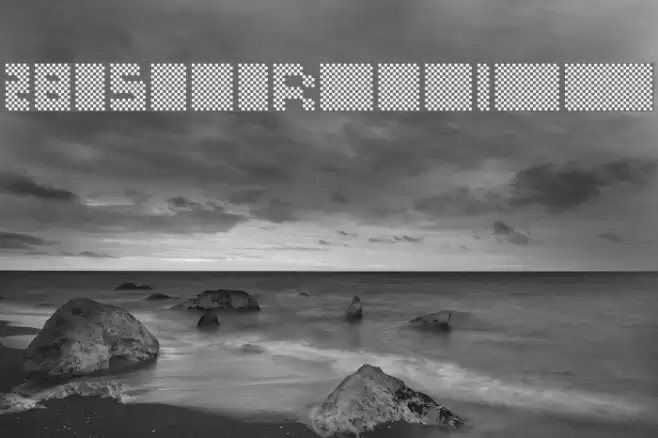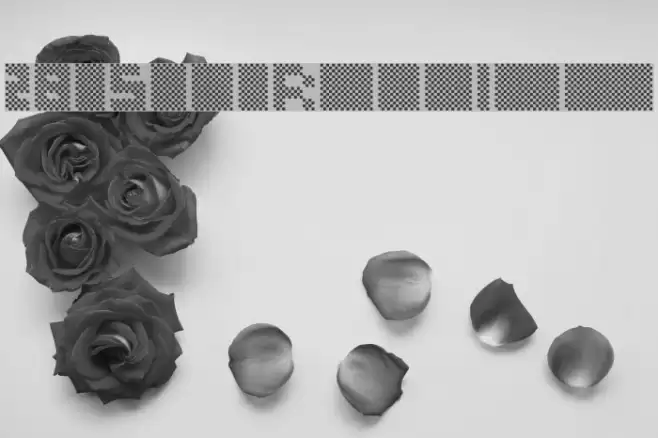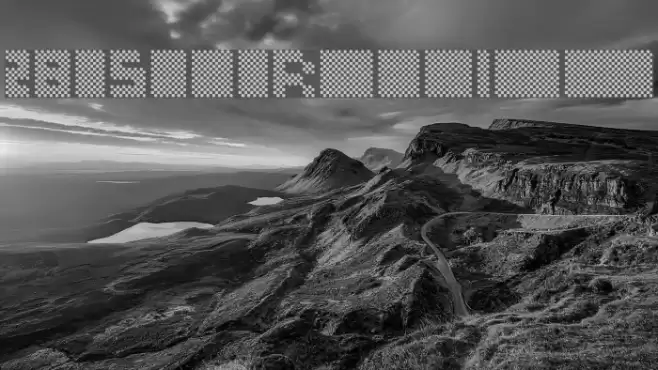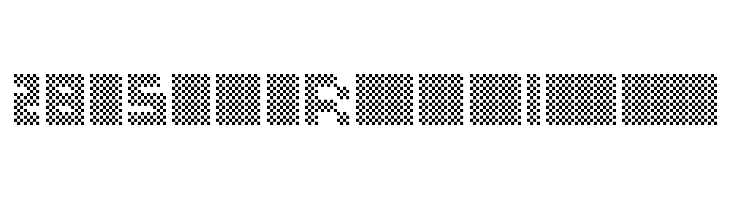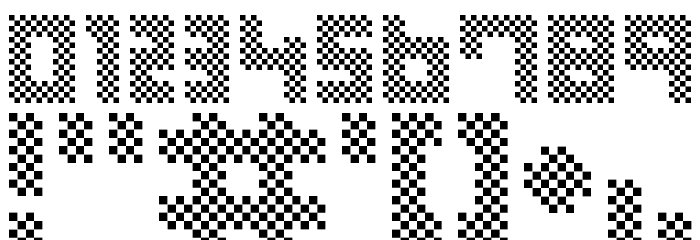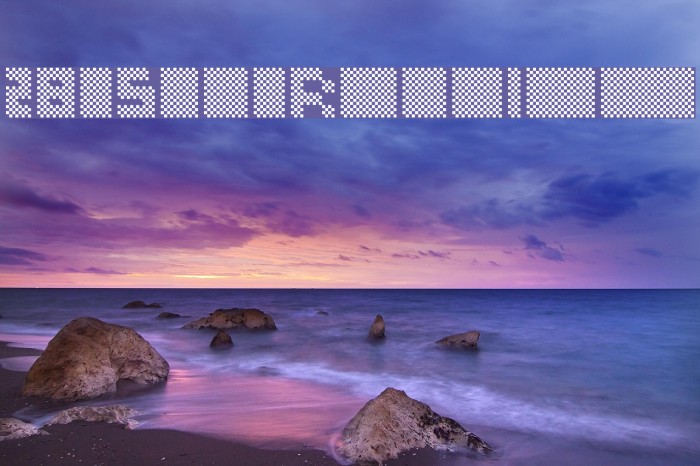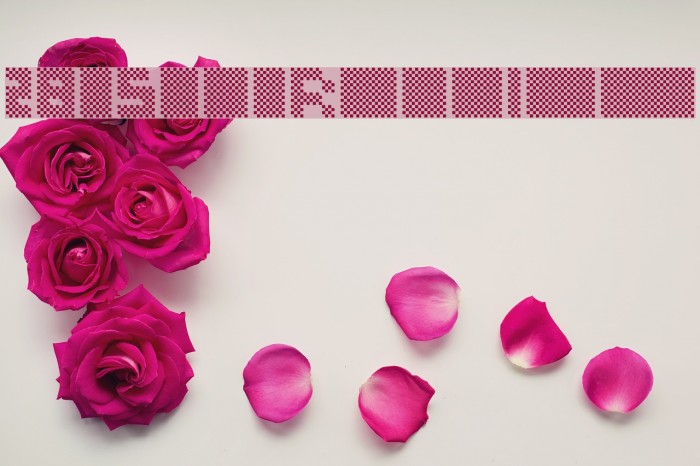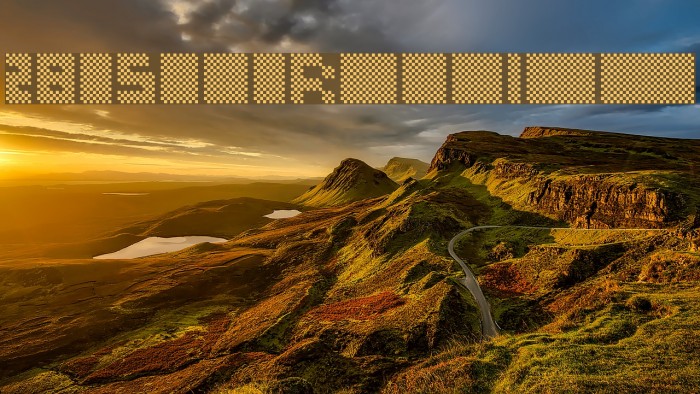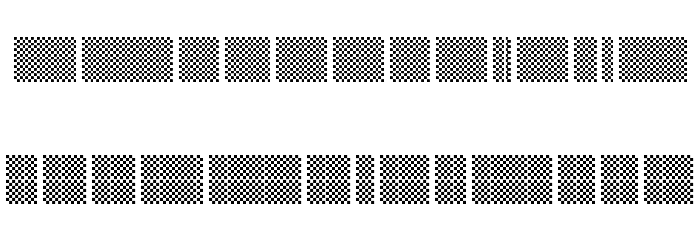
28 Sys Regular Font
28 Sys Regular Description
This font features a unique pixelated design, reminiscent of early digital displays and retro video games. Each character is constructed from a grid of small squares, creating a distinct, blocky appearance. The uppercase and lowercase letters maintain a consistent height, with clear differentiation between each character. Numbers and special characters follow the same pixelated style, ensuring uniformity across the font. The overall aesthetic is bold and eye-catching, making it ideal for projects that require a vintage or tech-inspired look.
A pixelated, retro-style font with a bold, digital aesthetic from Uncategorized fonts.
- Proposed Projects: Ideal for retro video game graphics, digital art projects, tech-themed posters, and any design requiring a vintage digital look.
- Overall Style: Vintage, Digital